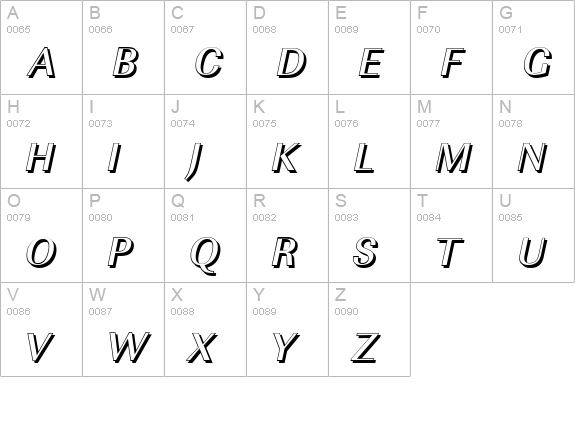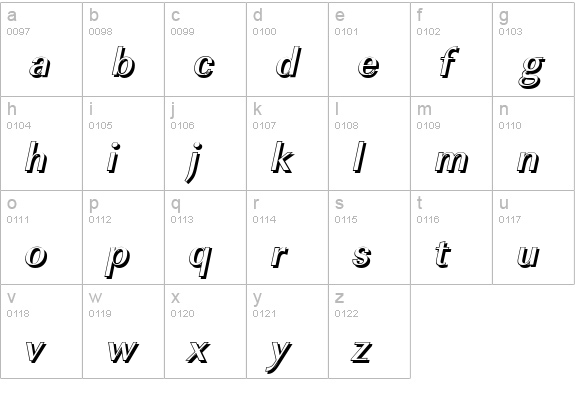
ImperialSh-Medium-Italic is a balanced, medium-weight, italic variant in the ImperialSh typeface family \xE2\x80\x94 well suited to sub-headlines, navigation, and balanced editorial work.
ImperialSh-Medium-Italic is a stylish and elegant font that exudes sophistication and refinement. Its medium weight and italic styling give it a unique flair that is perfect for adding a touch of class to any design project. Whether you're creating invitations, logos, or branding materials, this font will elevate your work to the next level. And the best part? ImperialSh-Medium-Italic is completely free to download at FontsMarket.com. This means you can access this beautiful font without any cost, making it a valuable addition to your font library. Don't miss out on this opportunity to enhance your designs with the timeless appeal of ImperialSh-Medium-Italic. Download it today and start creating stunning visuals that will leave a lasting impression.